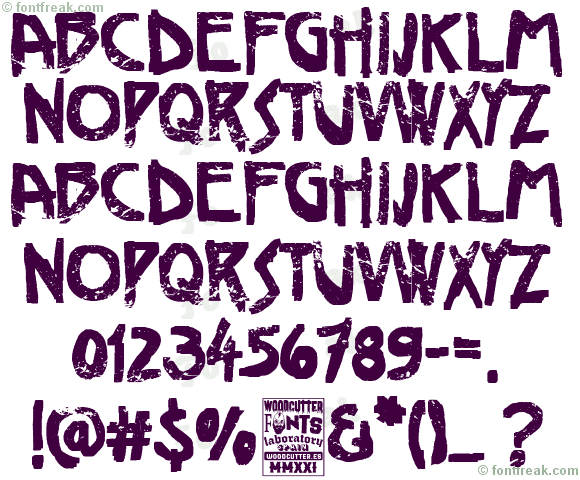
Deco Slaughter
Deco Slaughter is a striking decorative display font crafted by the talented woodcutter Manero. This unique typeface features a bold, rugged aesthetic that combines elements of both art deco and modern design. With its irregular stroke weight and high contrast, Deco Slaughter captures attention and evokes a sense of dynamism. The uneven, textured surfaces give the font a handcrafted feel, making it ideal for projects that require a touch of personality and flair. The spacing is thoughtfully designed to enhance readability while maintaining an artistic edge, allowing it to shine in various contexts.
The Deco Slaughter font is versatile and can be effectively utilized in a range of design projects. It’s perfect for eye-catching wedding invitations that need a modern twist, bold movie posters that demand to stand out, or engaging restaurant menus that showcase a creative culinary vibe. Additionally, the font can bring life to promotional materials for art galleries or music events, where a unique visual identity is crucial. Its character and charm make it a favorite among graphic designers, small business owners, and content creators looking to make an impression.
What truly sets Deco Slaughter apart is its ability to blend creativity with practicality. It embodies a playful spirit while ensuring clear communication, making it suitable for both formal and informal applications. The free licensing under freeware makes it accessible to a broad audience, further amplifying its appeal. For those seeking to enhance their creative projects with a distinctive typeface, the Deco Slaughter font free download offers a unique opportunity to incorporate this standout design into their work. Experience the artistic potential of Deco Slaughter and elevate your designs to new heights.